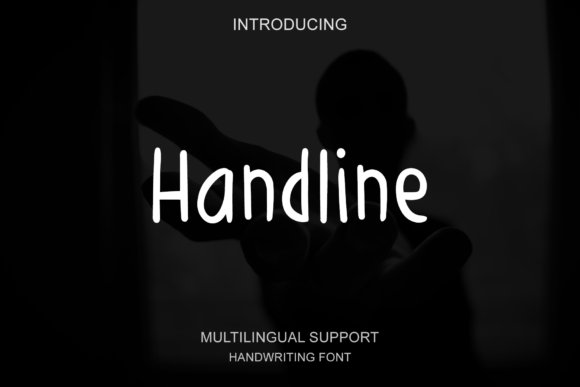
The Joy of Handwriting in Digital Design
Who hasn’t scribbled down a note or a to-do list in their favorite pen, only to later wish they could replicate that same handwritten charm in their digital creations? The quest for the perfect handwritten font has led many designers to the Handline Font, a beautiful and playful typeface inspired by the imperfections of handwritten notes.
Designed to capture the essence of handwritten writing, Handline Font is more than just a font – it’s a way to add a personal touch to your designs. Whether you’re working on a branding project, creating a special event invitation, or designing a book cover, Handline Font is the perfect addition to elevate your work.
Key Features of Handline Font
- Unique Characteristics: Handline Font features a unique, handwritten style with subtle imperfections and variations in line width, giving it a personal and expressive feel.
Handline Font Review
Overall, I’m impressed with the Handline Font. It has a unique, elegant feel to it that could add a touch of sophistication to any design project ✨. The font’s curved lines and subtle flourishes give it a sense of movement and fluidity that’s hard to find in other sans-serif fonts.
- The font’s high x-height makes it easy to read, even at smaller sizes ✨.
- The subtle weight variation between the regular and bold weights adds depth and interest to the font ✨.
- The font’s open feel makes it suitable for a wide range of applications, from body text to headlines ✨.
- The font’s unique design may not be suitable for all projects, particularly those that require a more conservative or traditional look ⚠️.
- The font may not be as versatile as some other sans-serif fonts, particularly in terms of its ability to work well in both digital and print formats ⚠️.
Overall, I think the Handline Font is a great addition to any designer’s toolkit. While it may have some limitations, its unique feel and high level of readability make it a great choice for a wide range of projects.
Some common use cases for Handline Font include:
1. Adding a touch of elegance to invitations, menus, and other formal documents.
2. Creating a unique and eye-catching title for a presentation or poster.
3. Using it as a creative font option for social media graphics and branding materials.